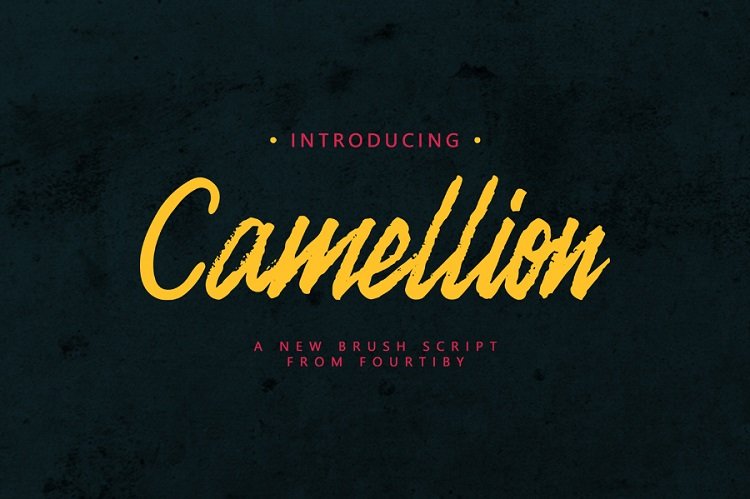
Camellion Brush Font
A beautiful handwriting. Introducing Camellion Brush Font! Camellion Brush designed by Irfan Ulya. Camellion is a brush script fonts with natural textured. High quality font with open-type features, ligatures. Camellion Font perfect for editorial, logos and packing. It comes in uppercase and lowercase and supports multi-language.